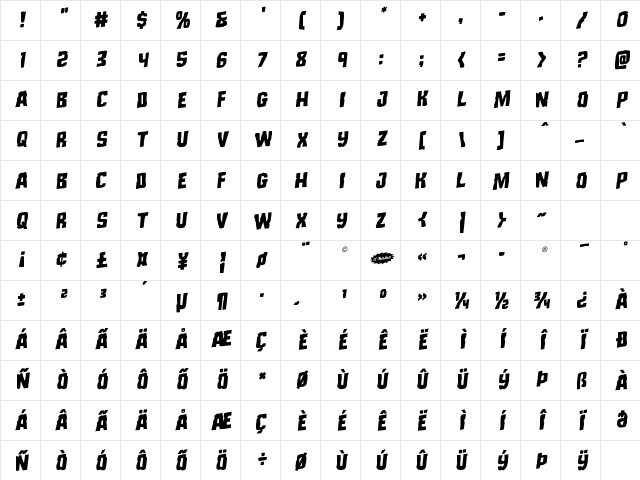
Complete Monster Hunter Staggered Rotalic Italic glyph index. Displaying only characters natively supported by Monster Hunter Staggered Rotalic Italic font.
Monster Hunter Staggered Rotalic is a composed and adaptable typeface that performs quietly and consistently across a wide range of design contexts. The slanted form adds forward momentum and visual energy.